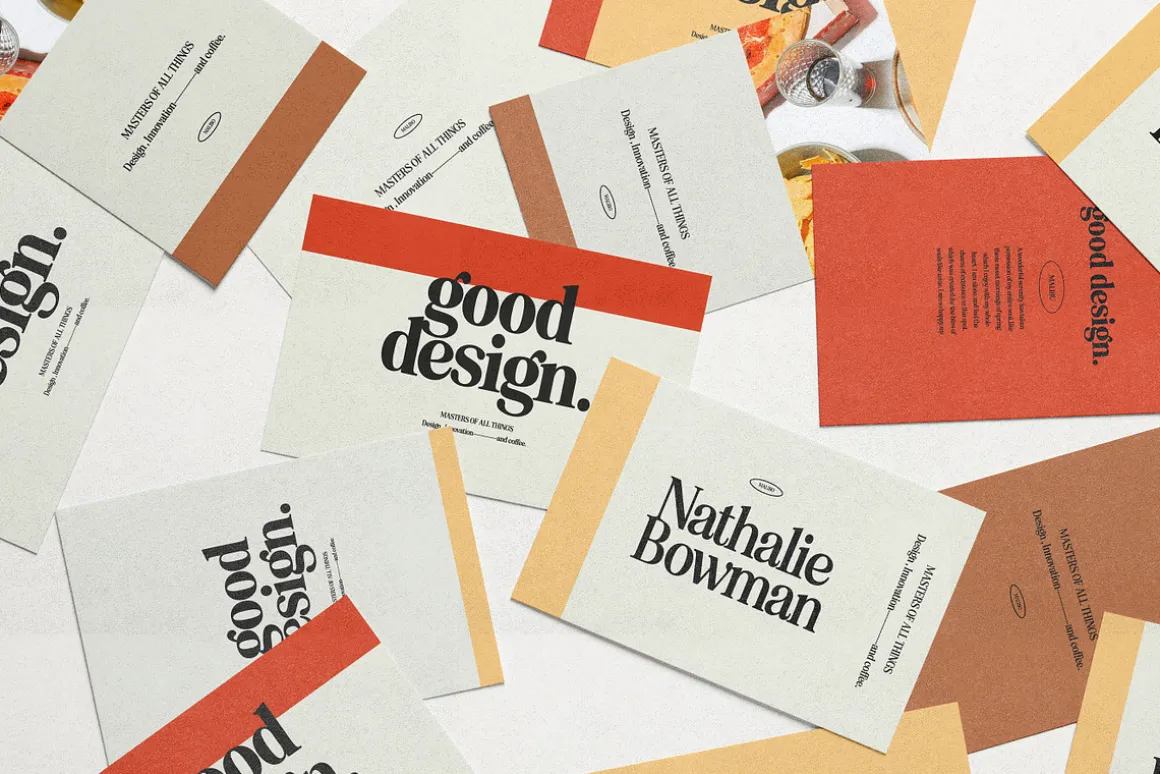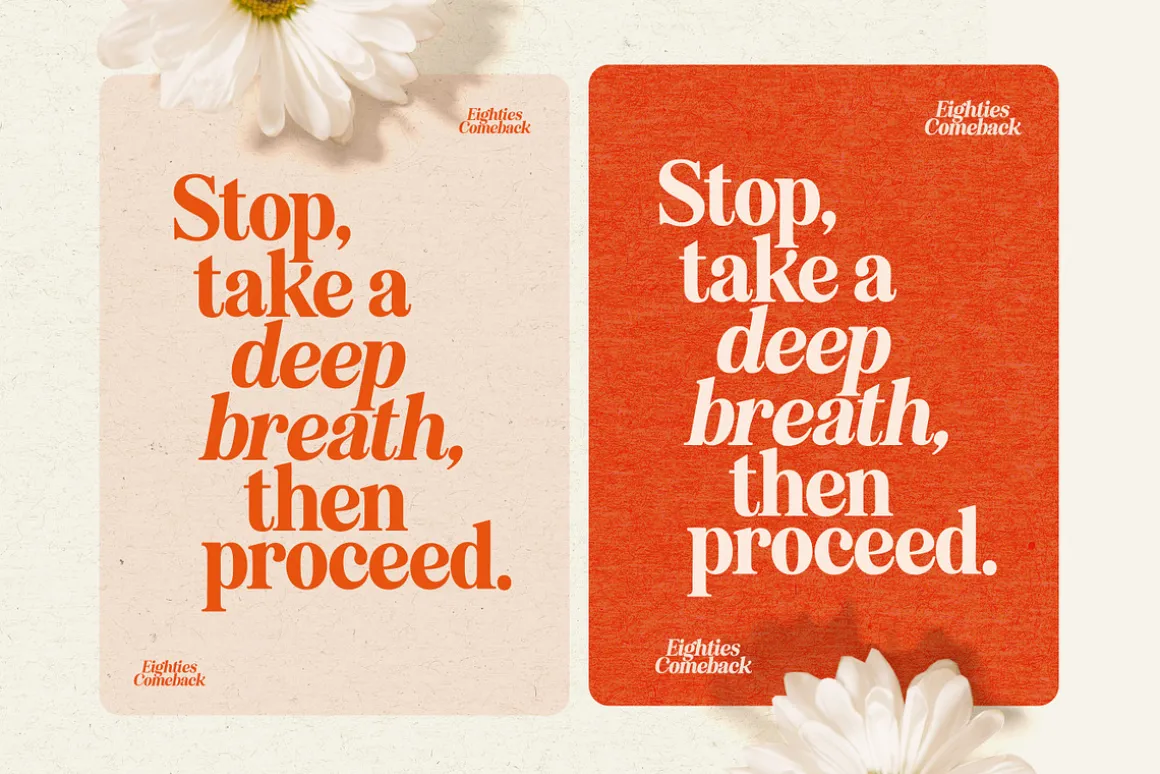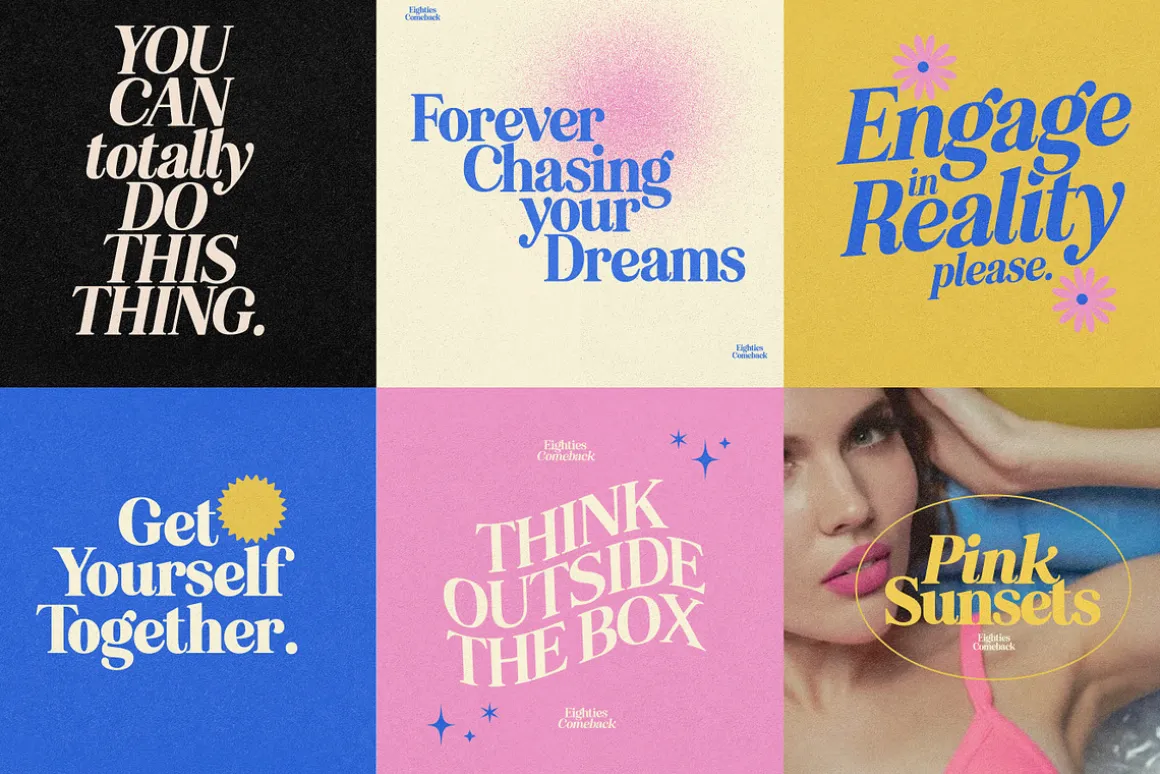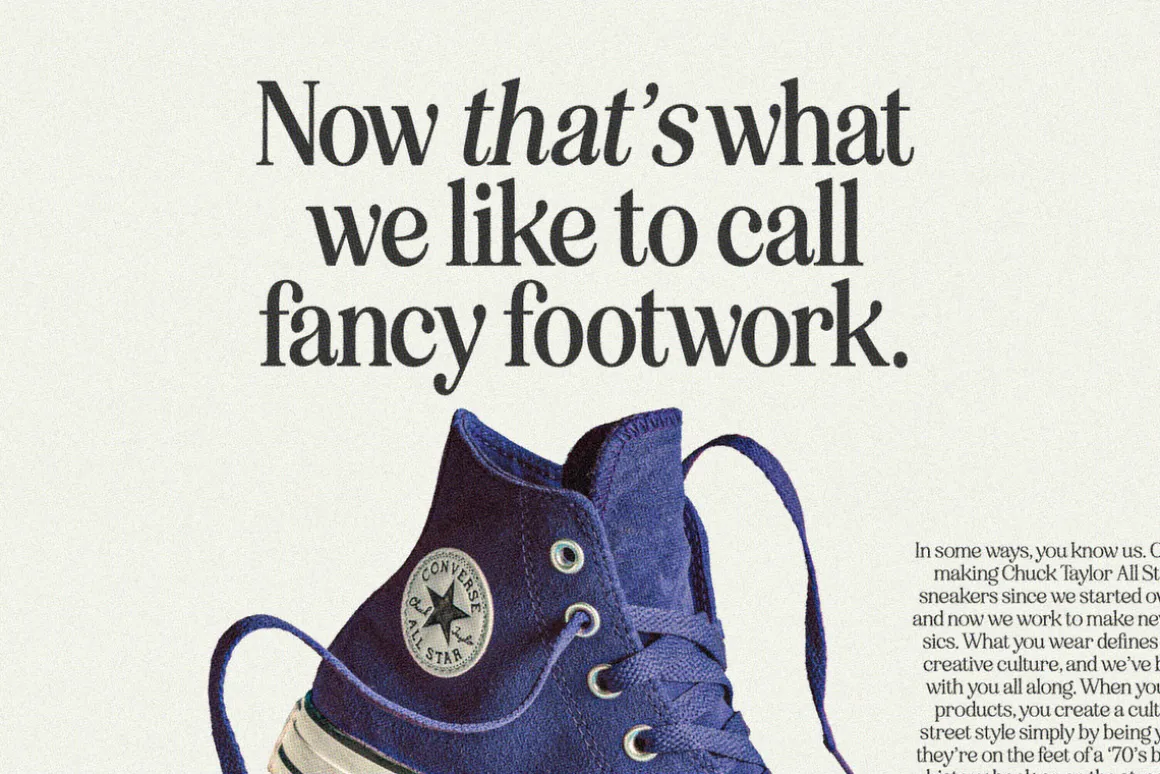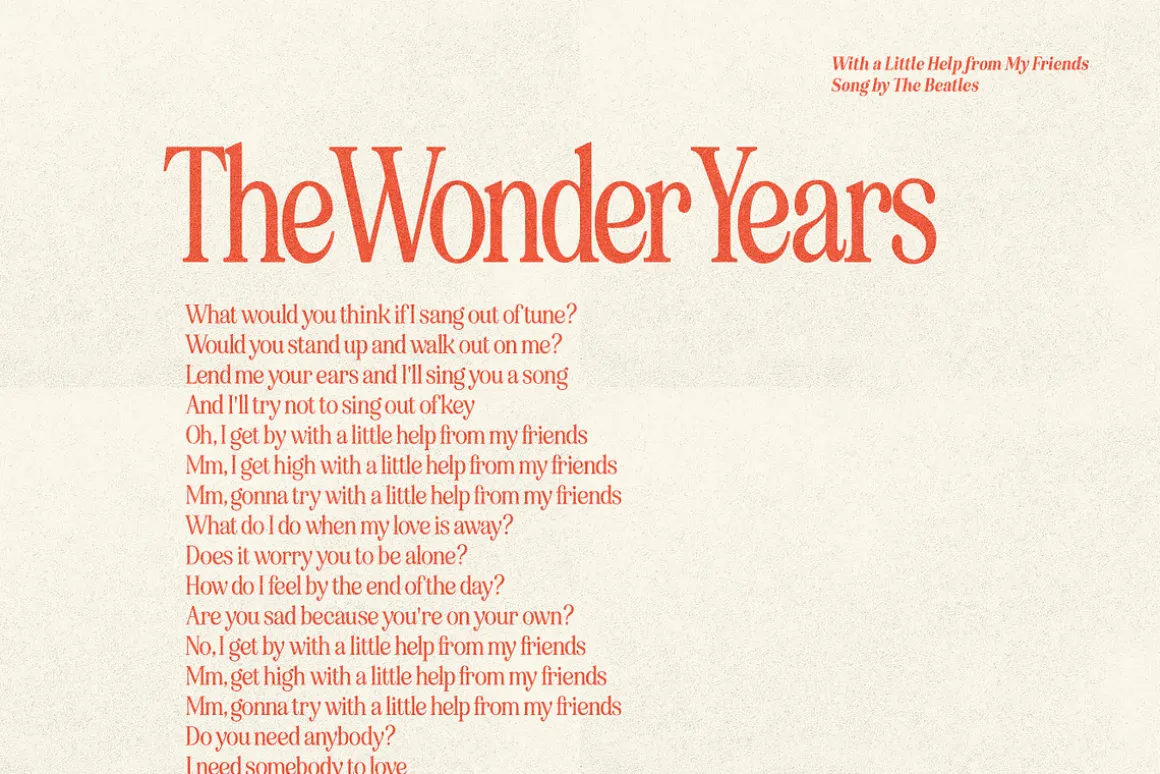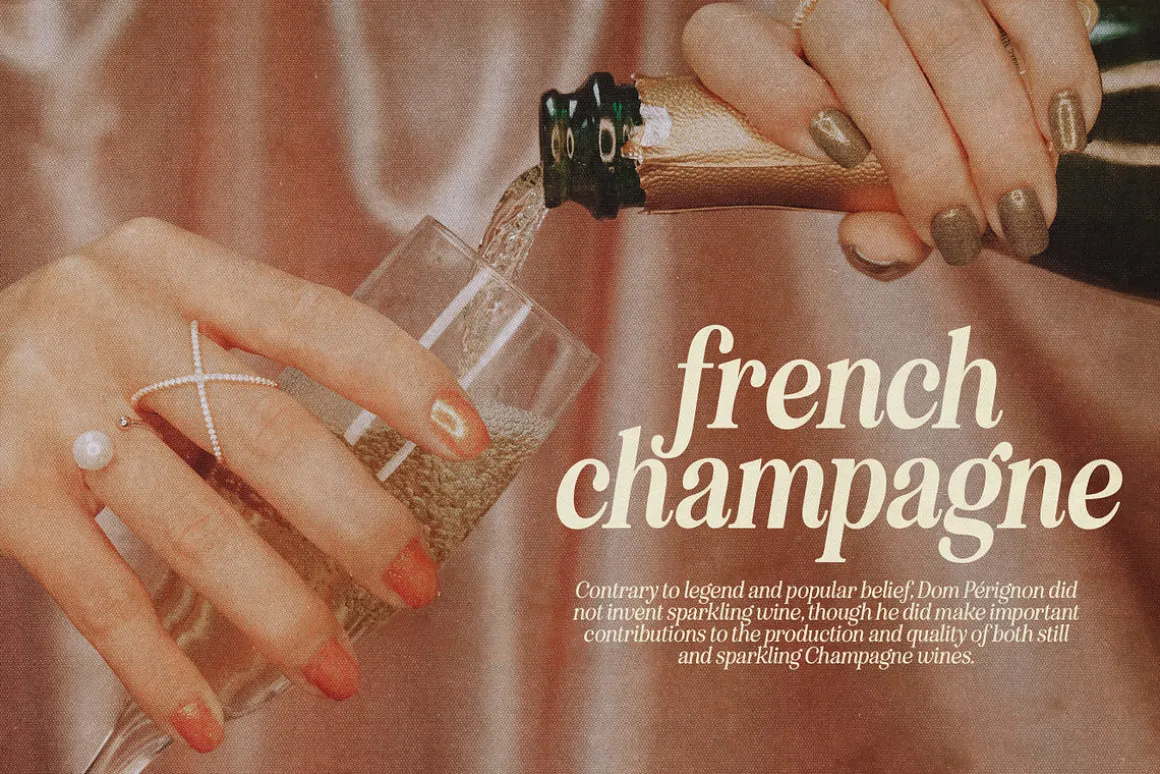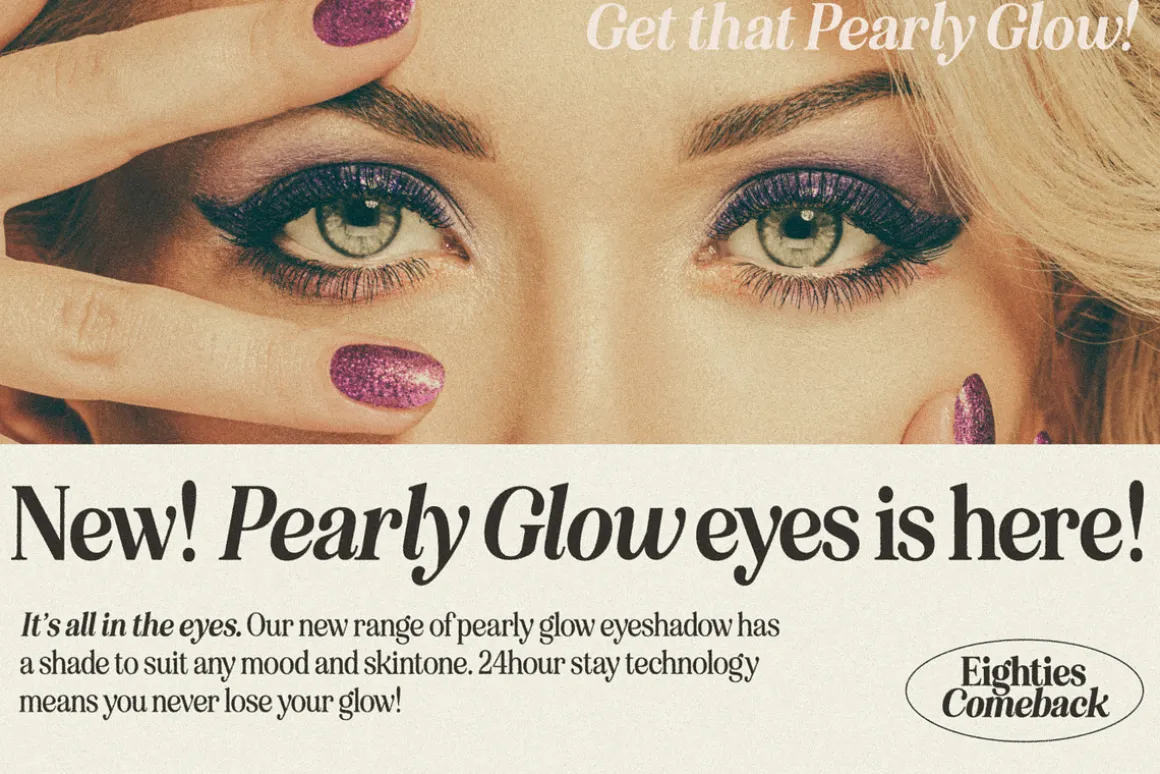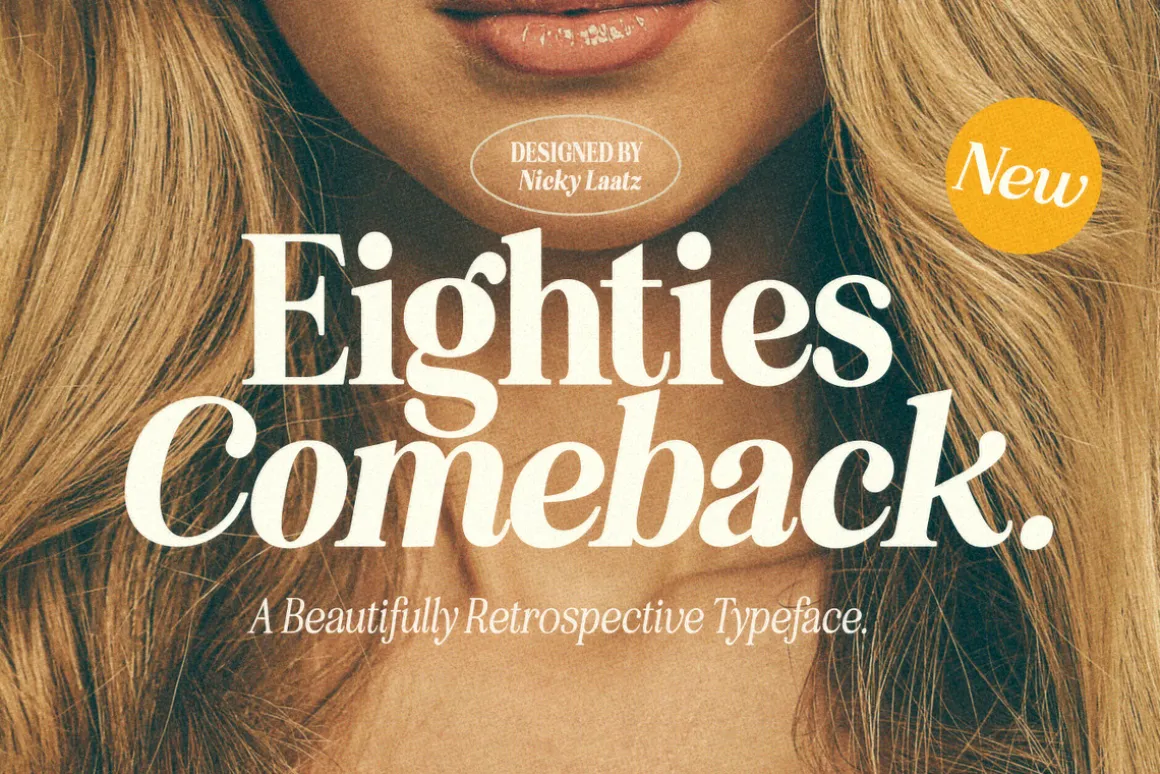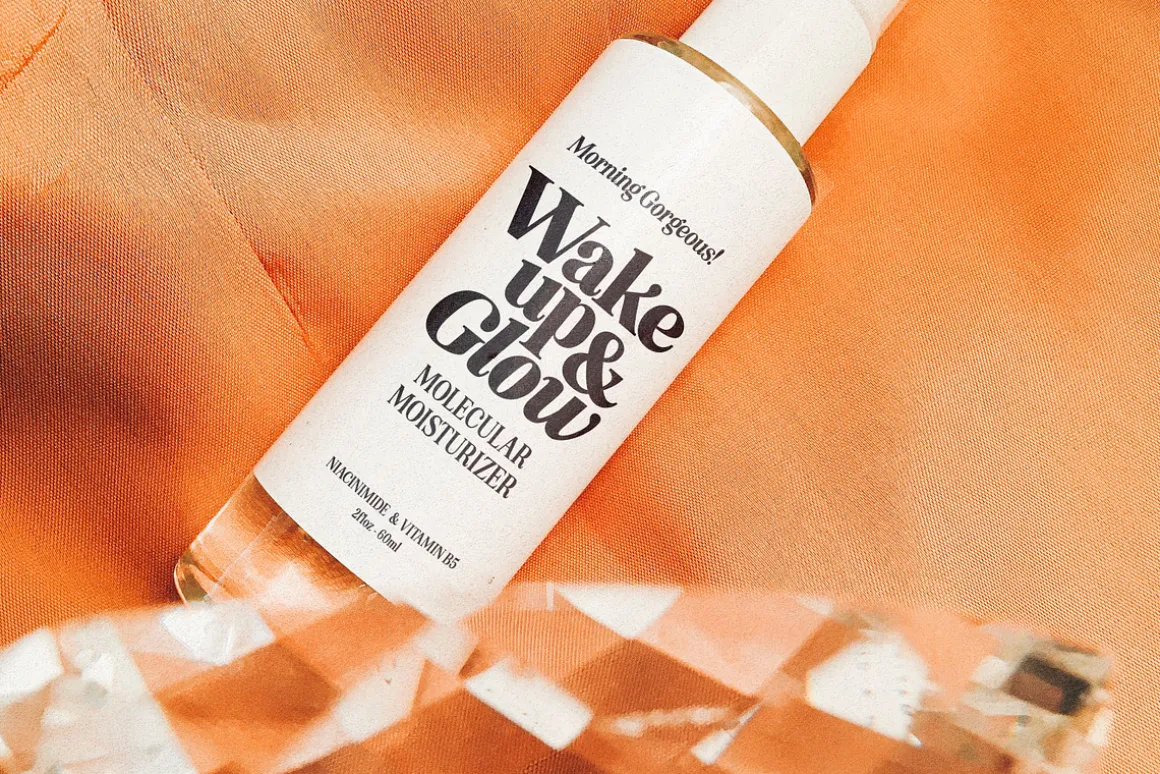
Say hello to “Eighties Comeback” – A flirtatiously charming 80’s retro-inspired typeface with wonderful versatility given it includes 70 fonts. 2 Handy variable fonts are also included for those who have Adobe Photoshop/Illustrator CC 2020 and up 🙂
Inspired by magazine adverts from the 70’sand 80’s – this family fits right in with bringing retro back into the 21st century. Super-versatile – have a scroll through all the previews to see the very wide range of variety that Eighties Comeback can manifest the possibilities are really quite endless 🙂
Design Tips : Adjust your letterspacing to add more groove! Tighter letterspacing for large headers and a looser spacing for small body text.
- 70 fonts for Eighties Comeback is regular and Italic, varying from light to black in weight, and ultra condensed to Regular in width.